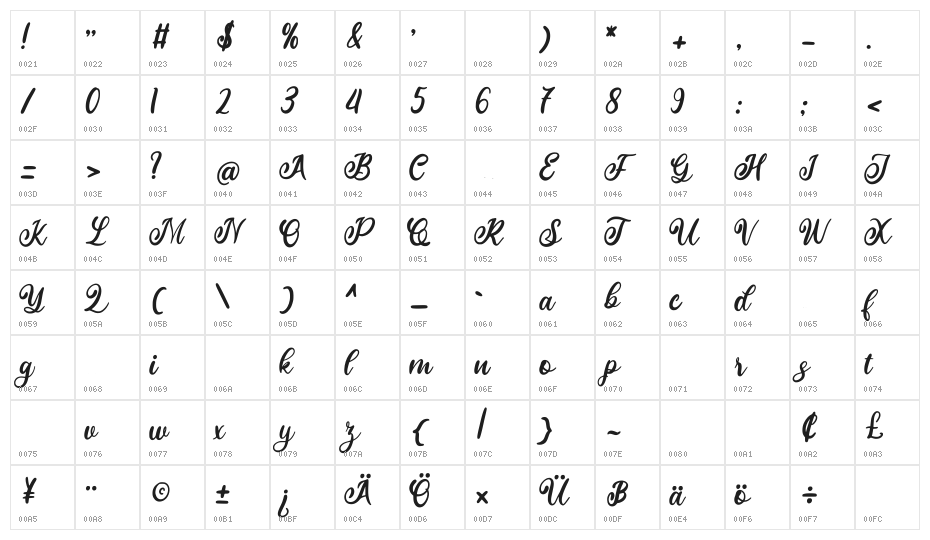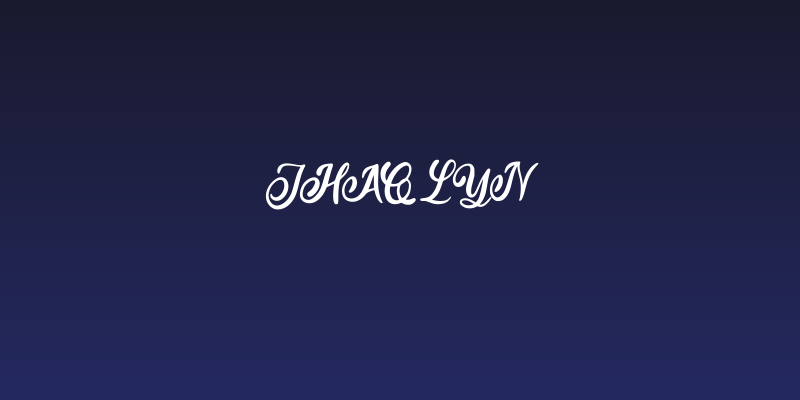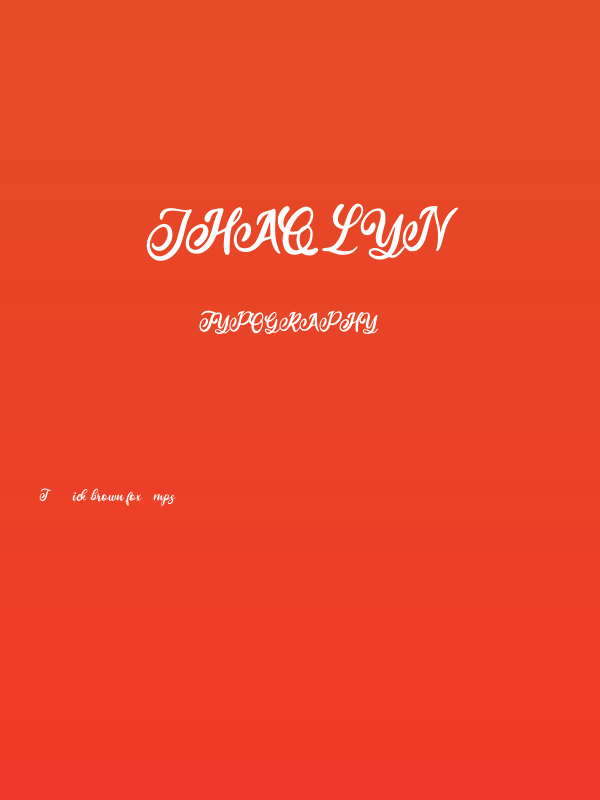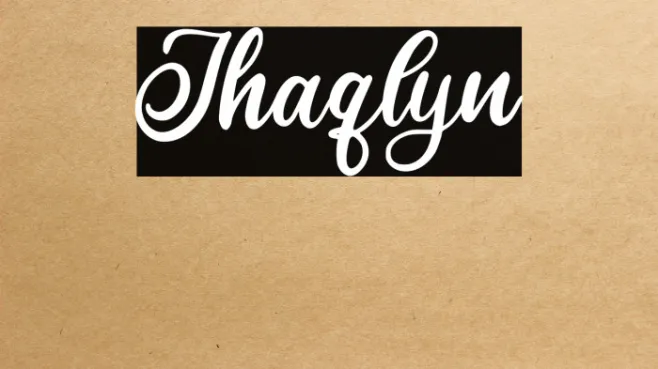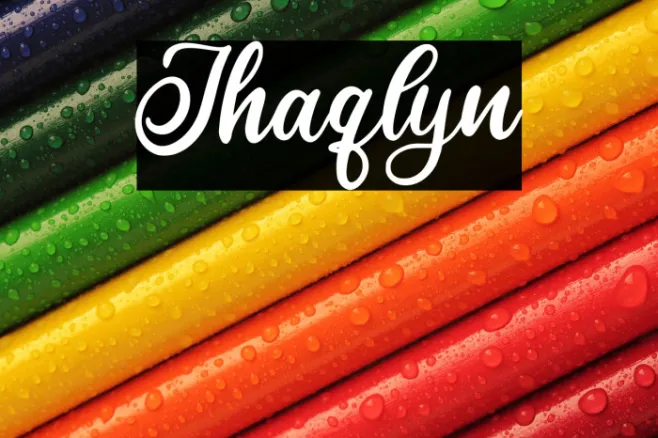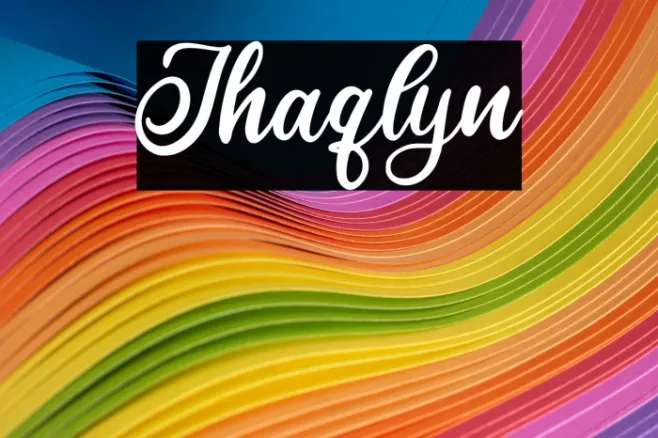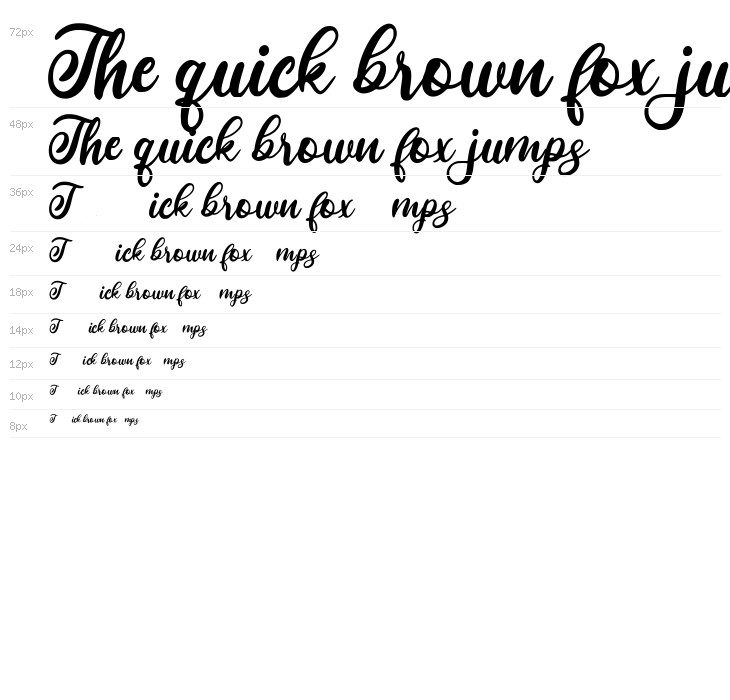
Jhaqlyn Font
Jhaqlyn Description
This font exudes a lively and elegant script style, characterized by its flowing and interconnected letterforms. The uppercase letters are ornate, with sweeping curves and flourishes that add a touch of sophistication. The lowercase letters maintain a consistent rhythm, enhancing readability while preserving the decorative nature. Numbers and special characters are crafted with the same attention to detail, ensuring a cohesive look across all text. The overall design is reminiscent of classic calligraphy, making it suitable for projects that require a personal and artistic touch.